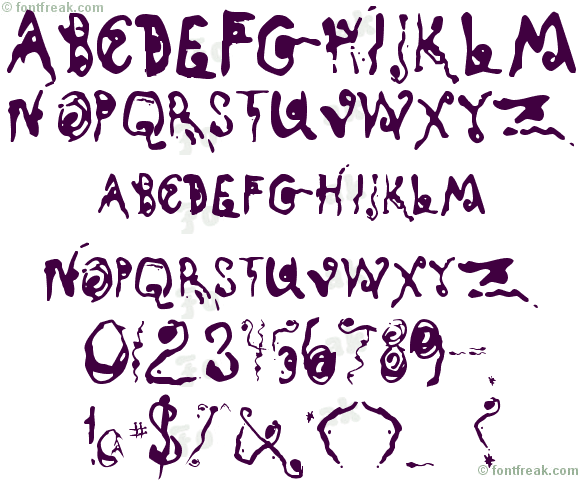
About Kyoto Song
Kyoto Song by Jennifer Dickert is a unique display font that captures attention with its artistic flair. This font is characterized by its playful, handwritten style, featuring a mix of thick and thin strokes that create an engaging visual rhythm. The irregularities in letterforms add a touch of spontaneity, making it ideal for projects that seek to convey creativity and emotion. The spacing between characters is thoughtfully designed to ensure readability while maintaining an organic feel, which is a hallmark of handwritten typography.
The Kyoto Song font is particularly well-suited for a variety of applications. It shines in wedding invitations, where its charming style can evoke romance and whimsy. For restaurant menus, it can lend a creative touch, perfectly complementing a menu that emphasizes artisanal or homemade dishes. Additionally, this font can enhance movie posters, especially for indie films or projects that aim for an artistic vibe. Graphic designers looking to create eye-catching social media graphics will also find it beneficial, as its unique characteristics can help brands stand out in a crowded digital landscape.
What sets the Kyoto Song font apart is its ability to blend playfulness with readability, making it a versatile choice for various design projects. Whether you are crafting a heartfelt invitation or a striking poster, the Kyoto Song font free download ensures your designs will leave a lasting impression.